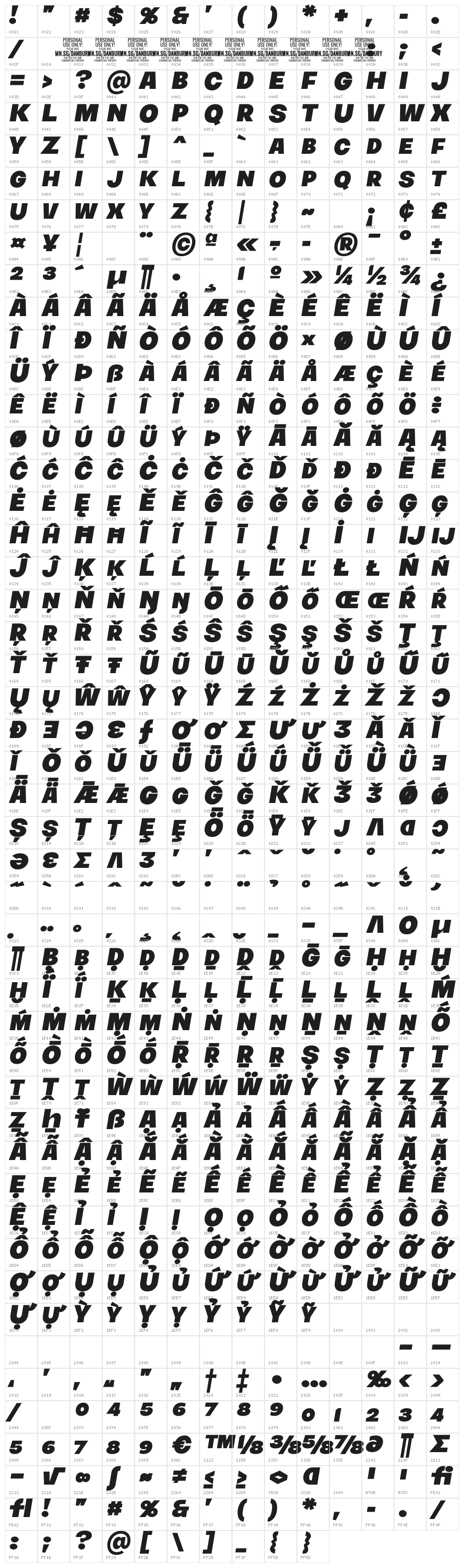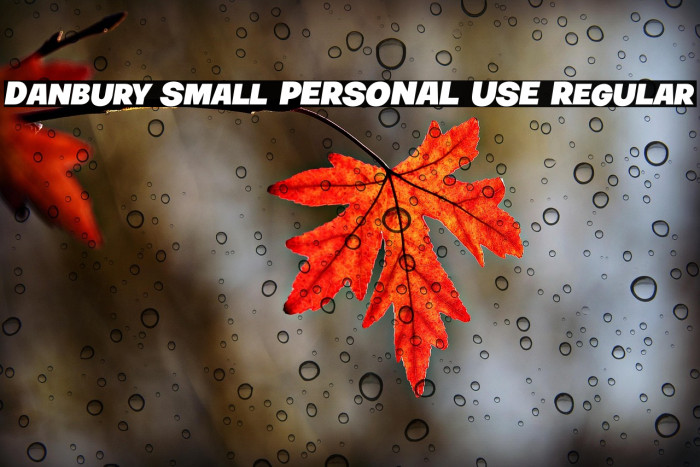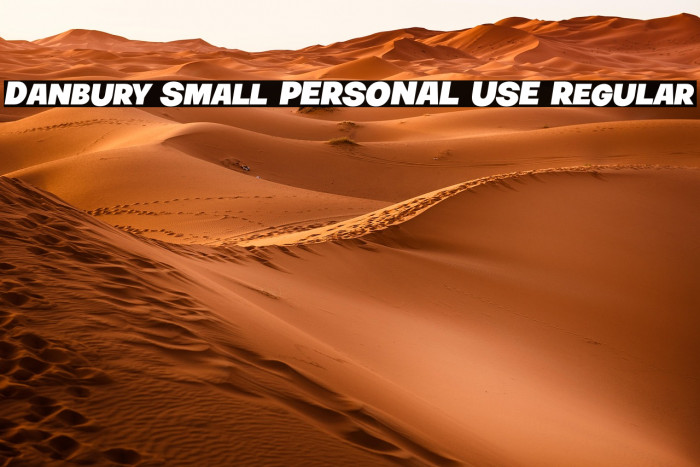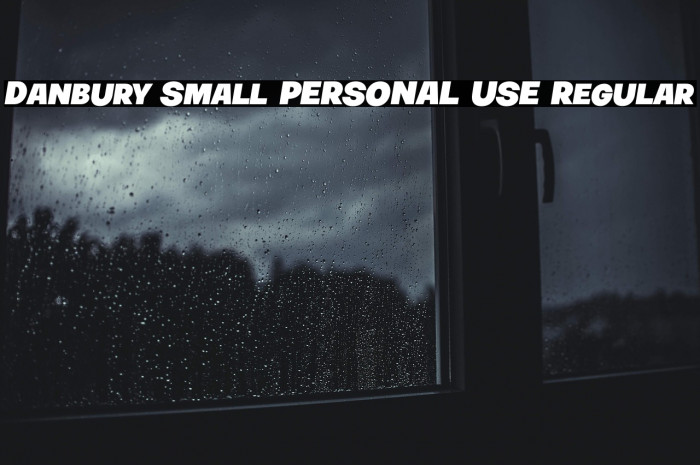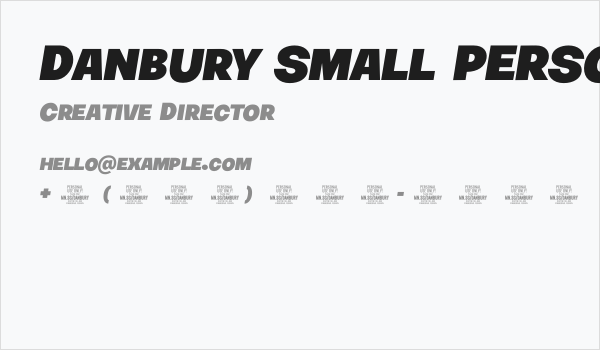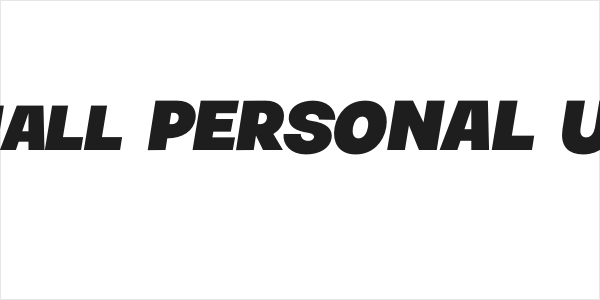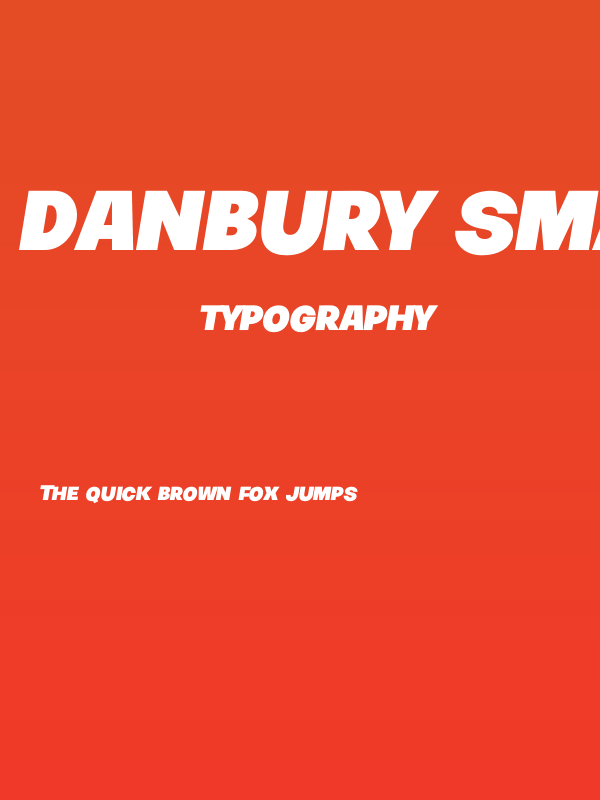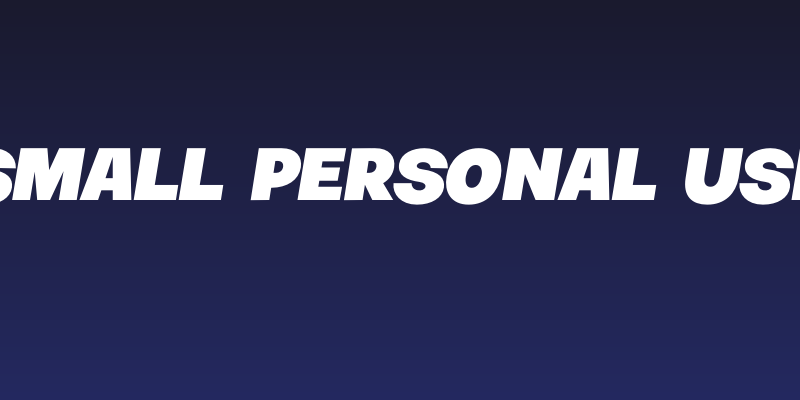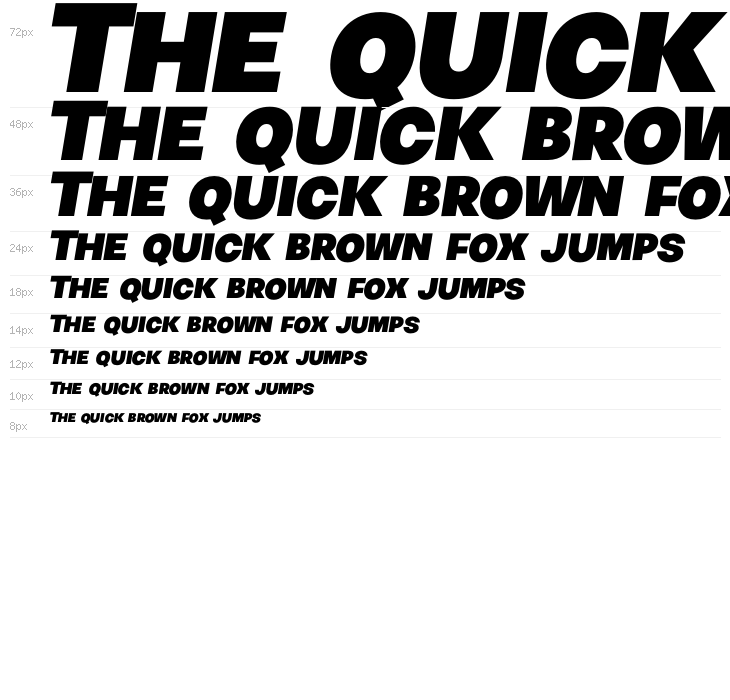
Danbury Small PERSONAL USE Regular Font
Danbury Small PERSONAL USE Regular Description
This font features bold, uppercase letters with a strong, impactful presence. The characters are slightly condensed, giving a compact and powerful look. The strokes are thick and consistent, providing a uniform appearance across all letters. The font is designed to grab attention, making it suitable for headlines or titles. Its bold nature and clean lines make it versatile for various design projects that require a modern and assertive style.
| Proposed Projects | Ideal for headlines, posters, branding materials, and any design requiring a strong visual impact. |